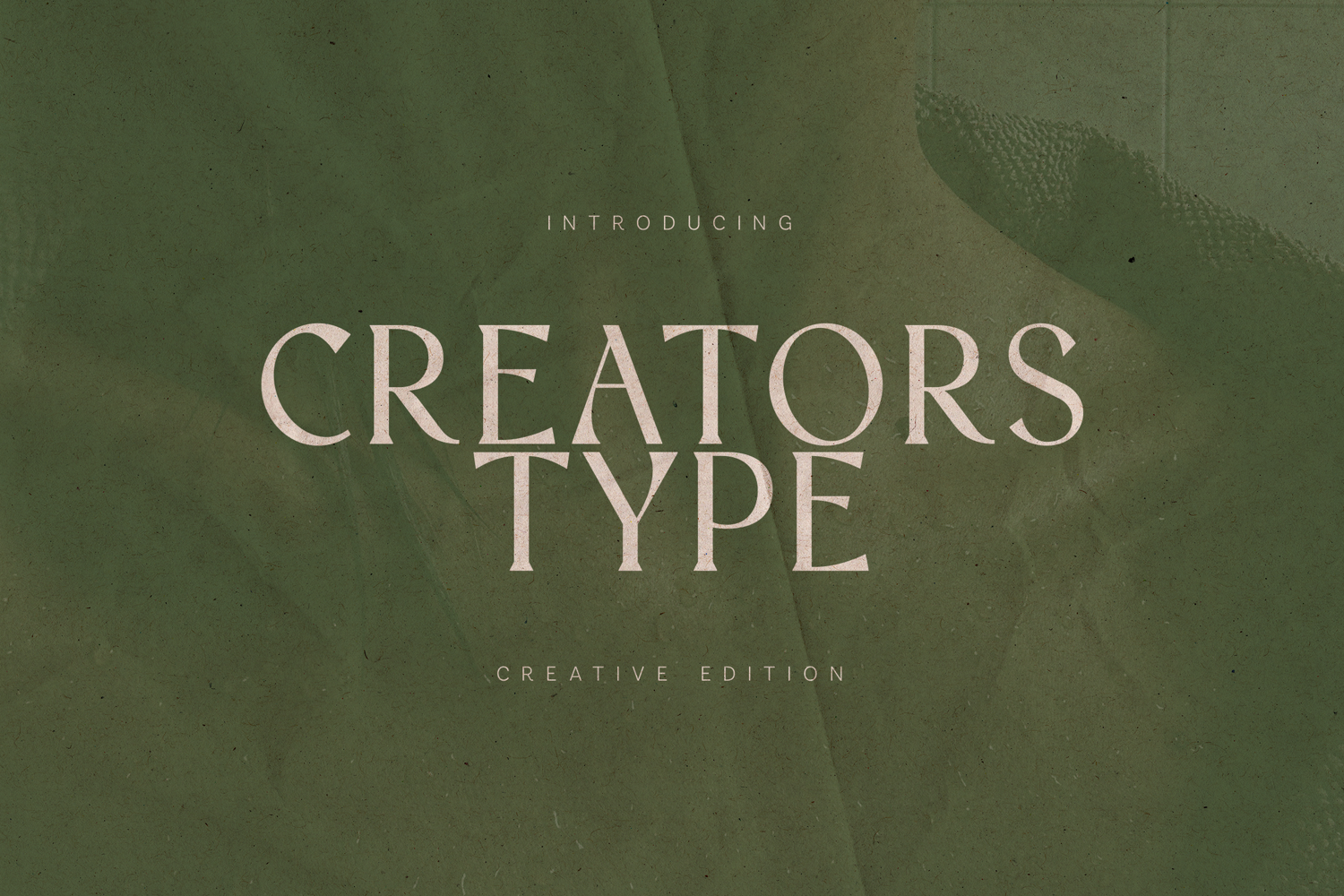
Creators Type Organic Editorial Serif Font
Creators Type is an organic editorial serif font crafted for designers, writers, and creative studios who value authenticity and expression. With softly irregular details, classic serif foundations, and a warm handcrafted feel, this typeface brings personality and depth to modern typography.
Designed for branding, editorial layouts, book covers, magazines, posters, and creative publishing, Creators Type balances timeless serif structure with subtle organic character. It feels human, thoughtful, and expressive—perfect for storytelling, lifestyle brands, cultural projects, and artistic identities.
The font includes uppercase and lowercase letters, numerals, punctuation, symbols, and extensive multilingual support. Delivered in OTF (OpenType Font) format, it works seamlessly across all major design software for both print and digital use.
✦ Perfect For- Editorial & magazine design
- Branding & creative studios
- Book covers & publishing
- Posters & headlines
- Lifestyle & cultural projects
- Artistic and handcrafted design systems
- Uppercase & lowercase characters
- Numbers & punctuation
- Symbols
- Multilingual support